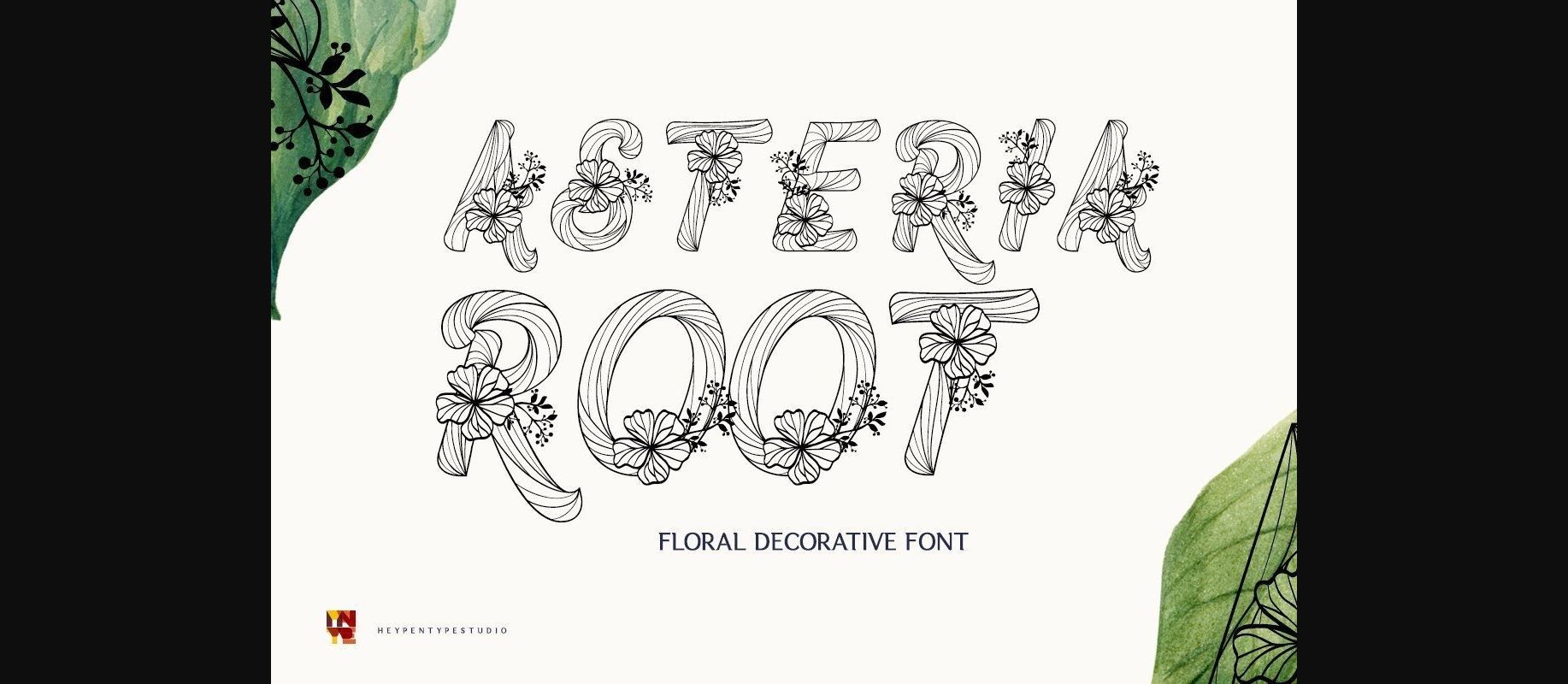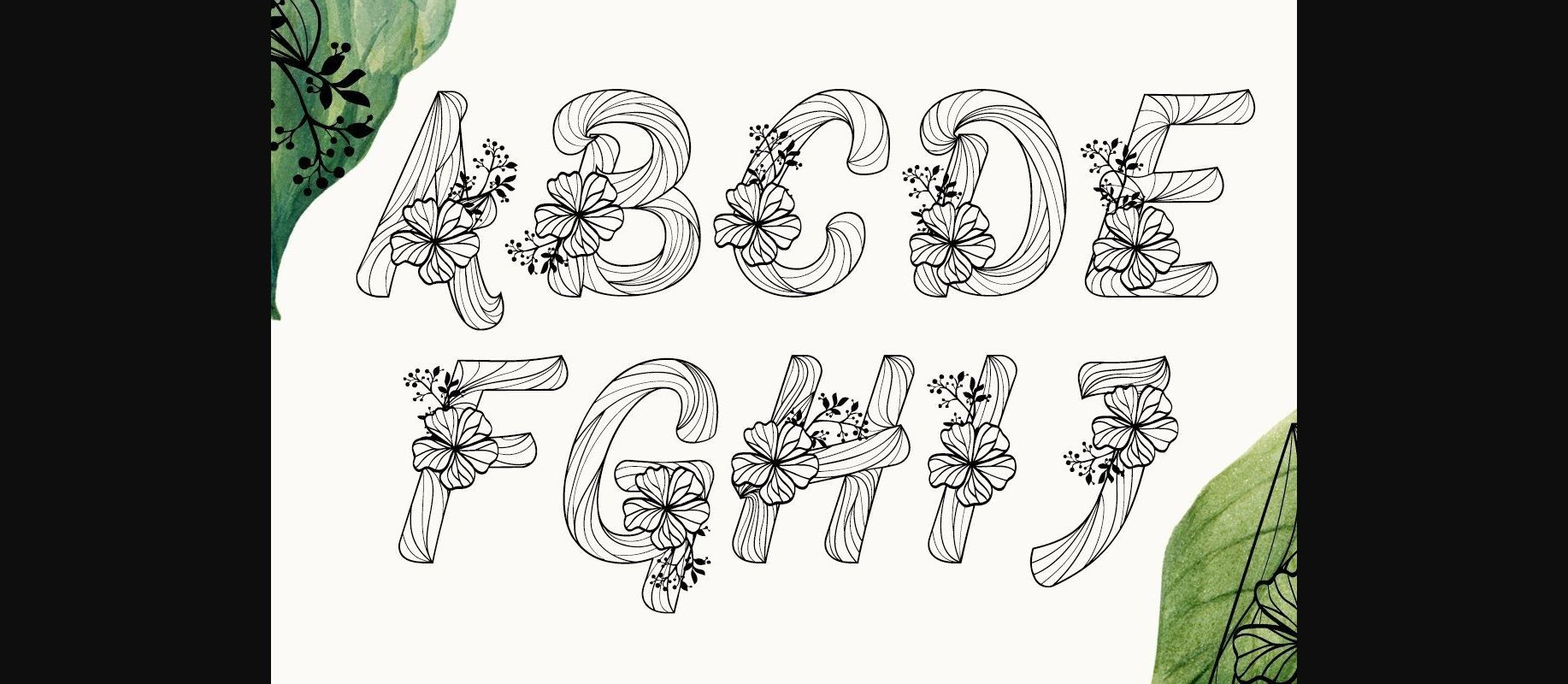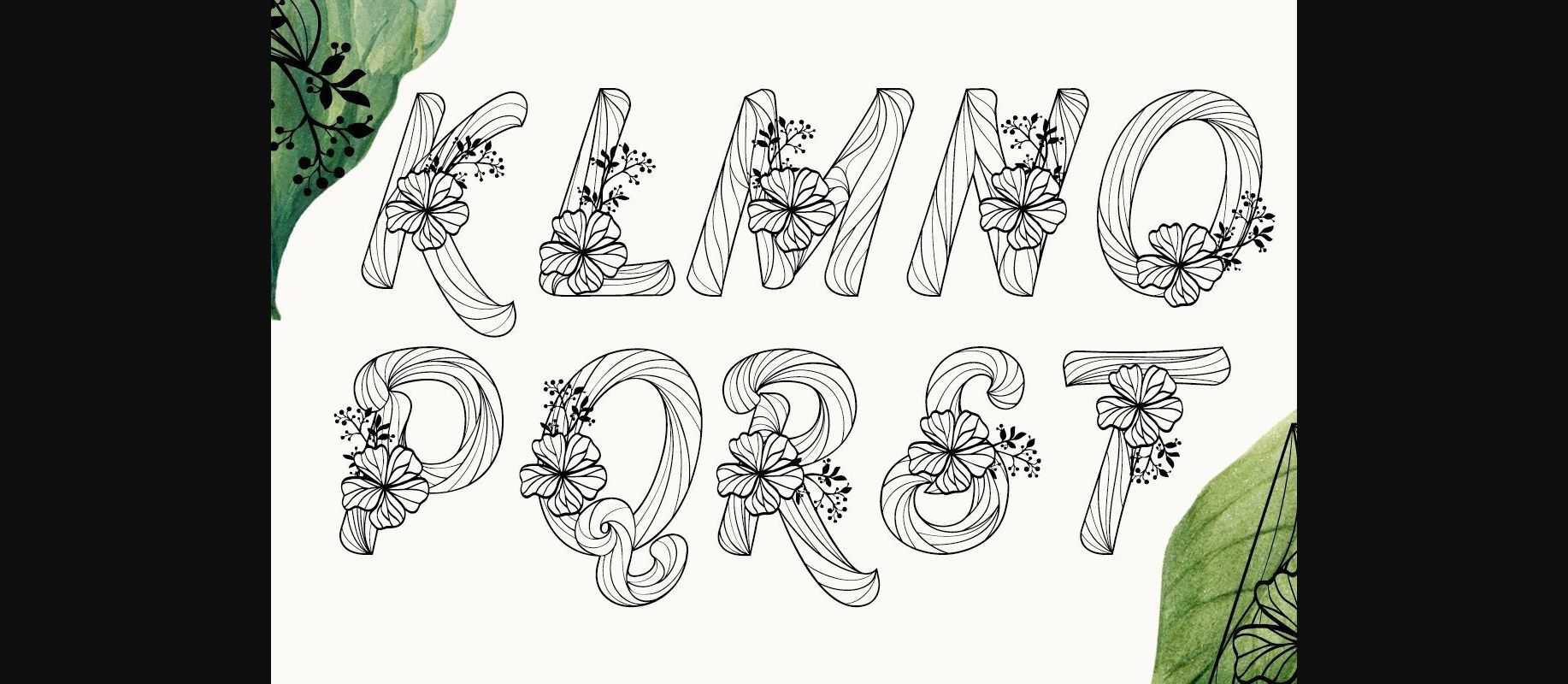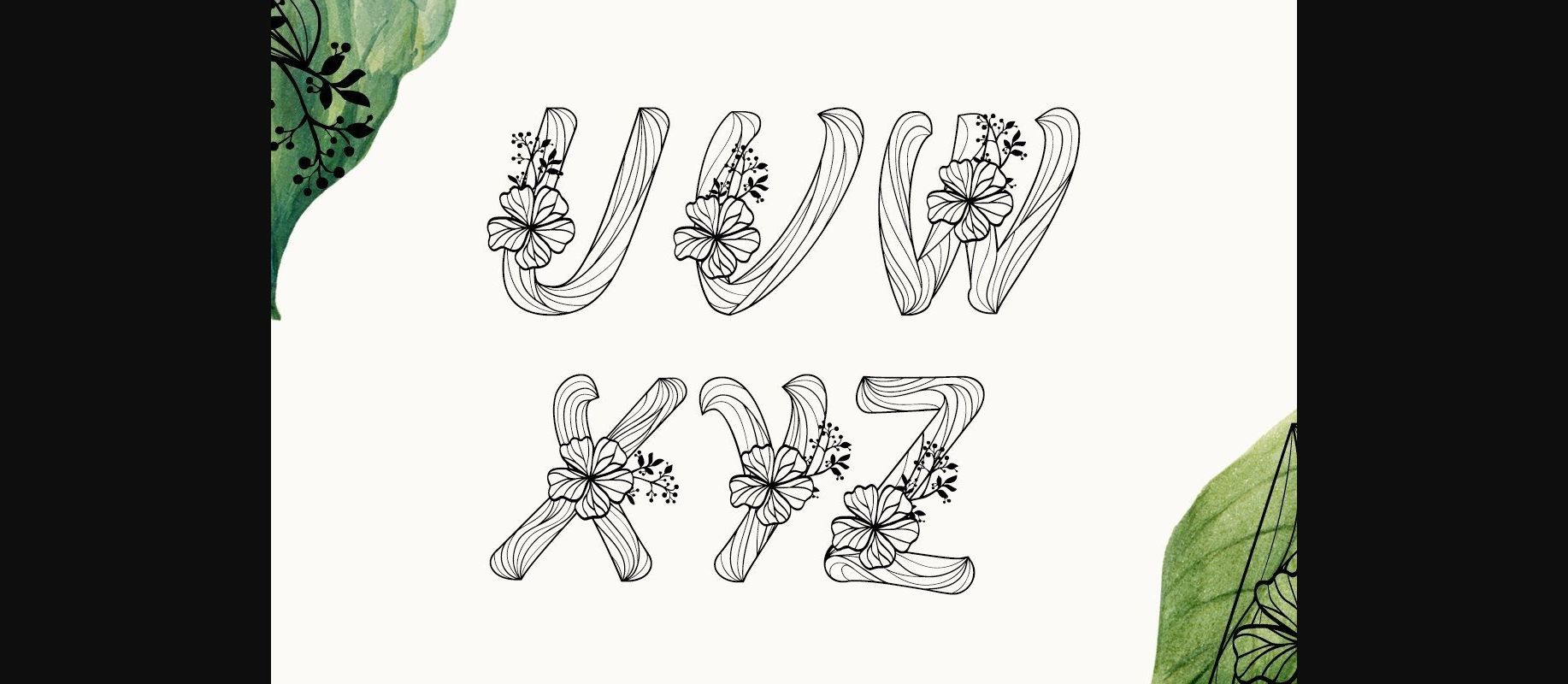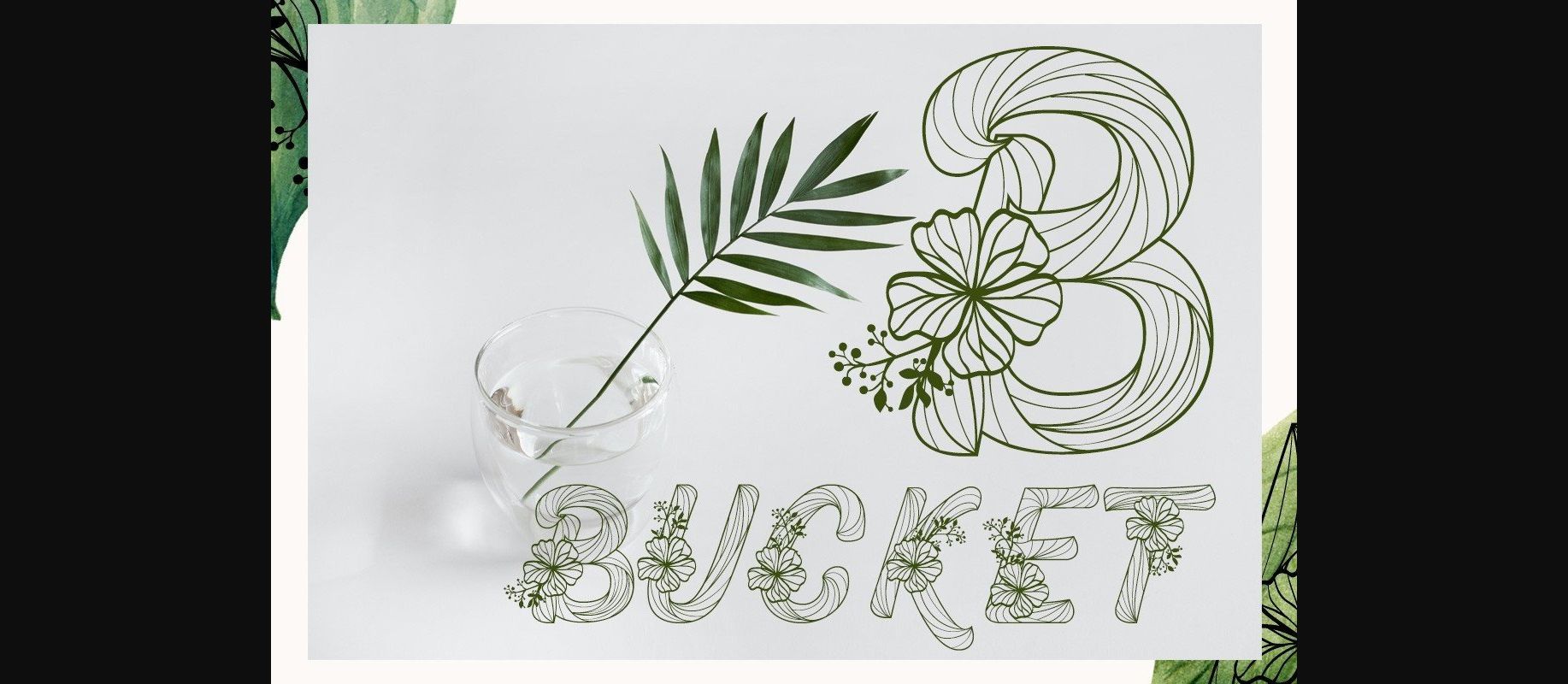
Asteria Root Font
About Asteria Root Font
Asteria Root is a multi-purpose decorative font with a sleek floral character. Its floral accent combined with the root pattern will create amazing and beautiful designs. This font is suitable for embroideries or quilting and other creative crafting projects.